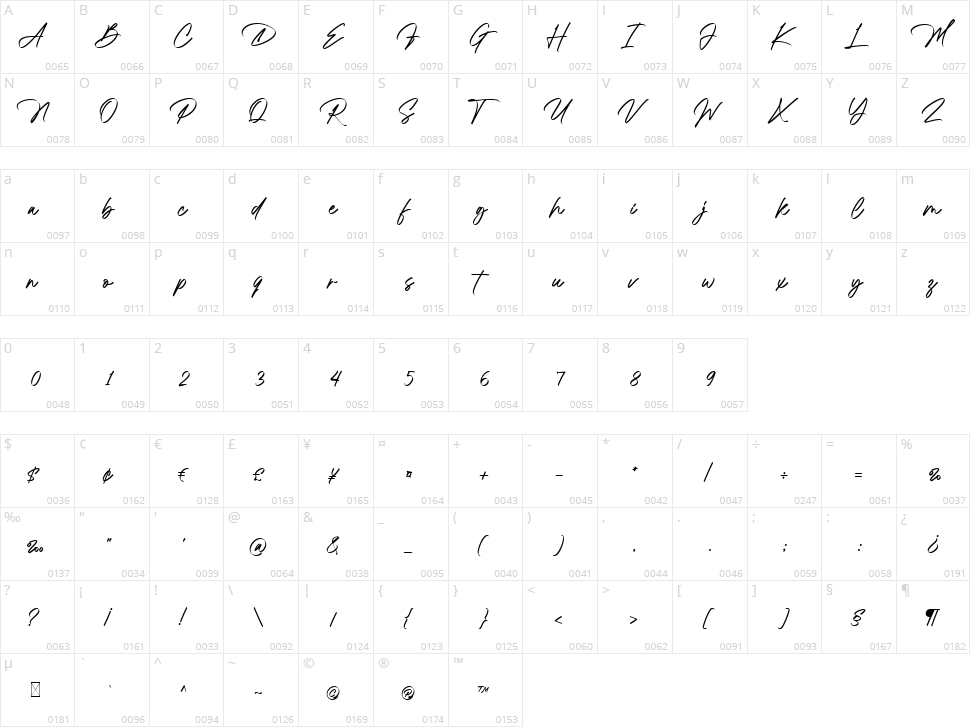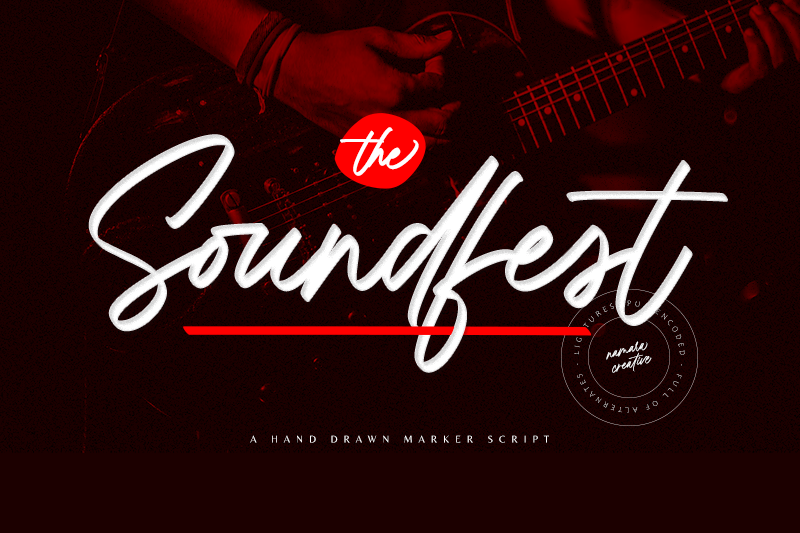
Soundfest
Soundfest is a modern marker script font, carefully crafted letters / alphabet in a completely natural hand-drawn look. Over 450+ characters (include : alternate sets, ligatures and multilingual support)